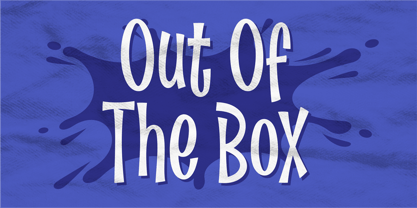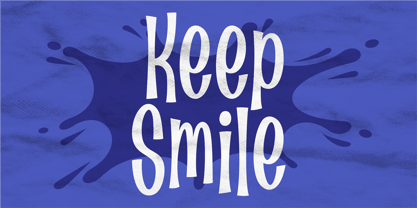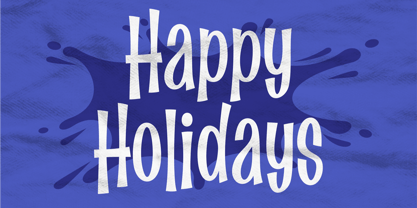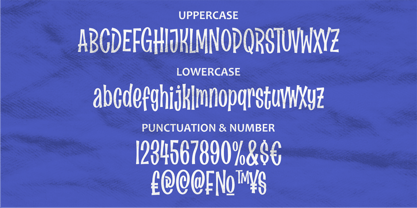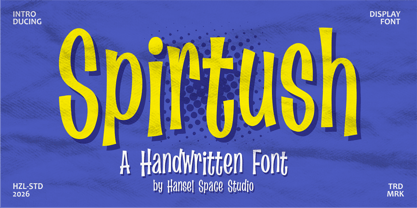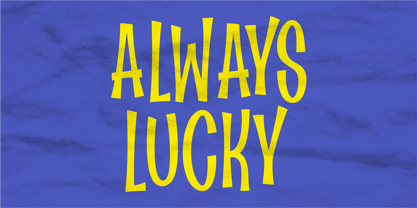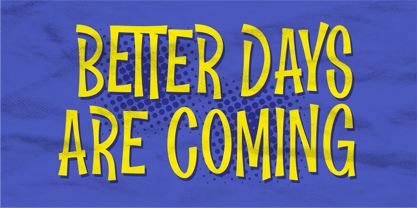
Spirtush
La familia tipográfica Spirtush fue diseñada por Hanief Farandi y publicada por Hanzel Space. Spirtush contiene 1 estilos. Más información sobre esta familia
Introducing, Spirtush– A sans serif font with a natural handwriting style that gives the impression of a unique font character. This type of font perfectly made to be applied especially in logo, headline, signage and the other various formal forms such as invitations, labels, logos, magazines, books, greeting / wedding cards, packaging, fashion, make up, stationery, novels, festival, event, labels or any type of advertising purpose. Features: Uppercase & Lowercase Numerals & Punctuation Multilanguage Supports Happy Creating! Hanzel Space Studio